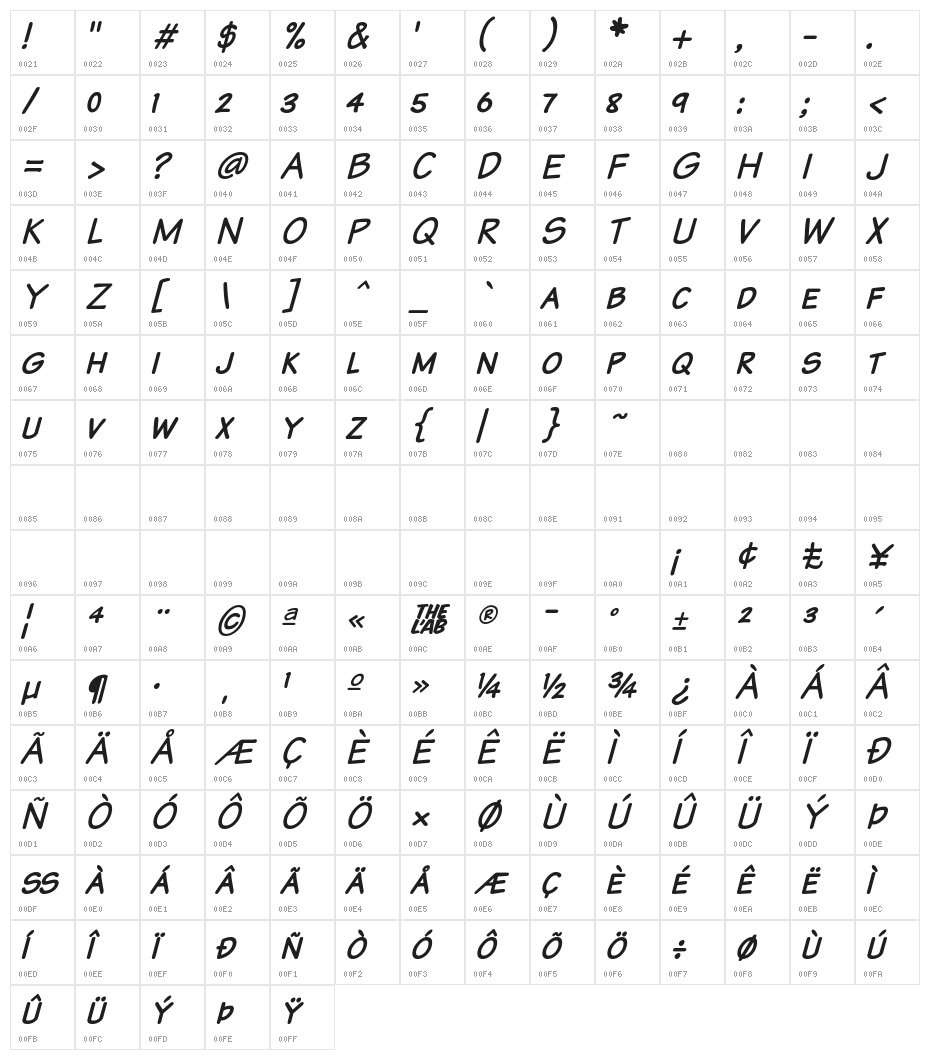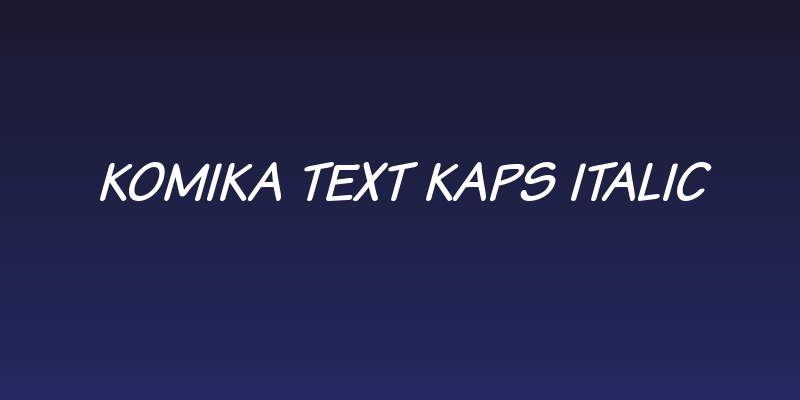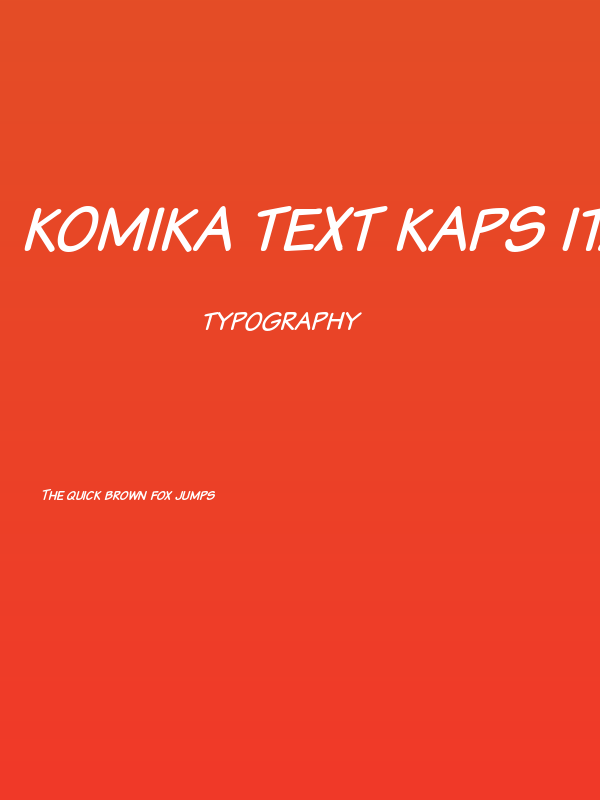
Komika Text Kaps Italic Font
Komika Text Kaps Italic Description
This font features a playful and dynamic style, characterized by its italicized, handwritten appearance. The letters are bold and slightly slanted, giving a sense of motion and energy. The strokes are smooth and rounded, contributing to a friendly and approachable look. The font maintains consistent thickness throughout, with medium contrast in stroke width. It includes a full set of uppercase letters, numbers, and a variety of special characters, making it versatile for different uses.
| Proposed Projects | Ideal for comic book text, children's book covers, playful branding, and casual invitations. |